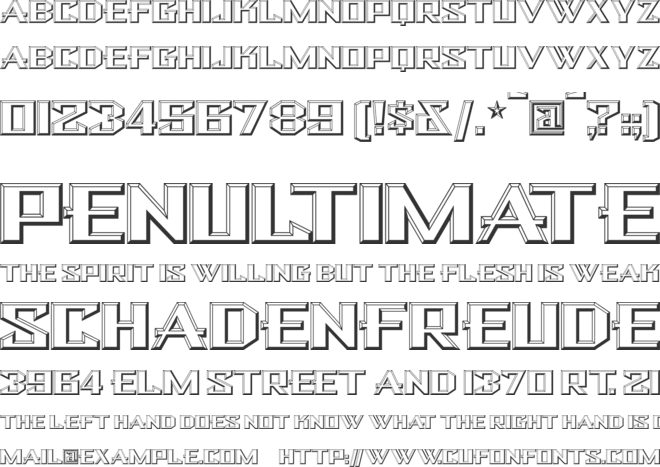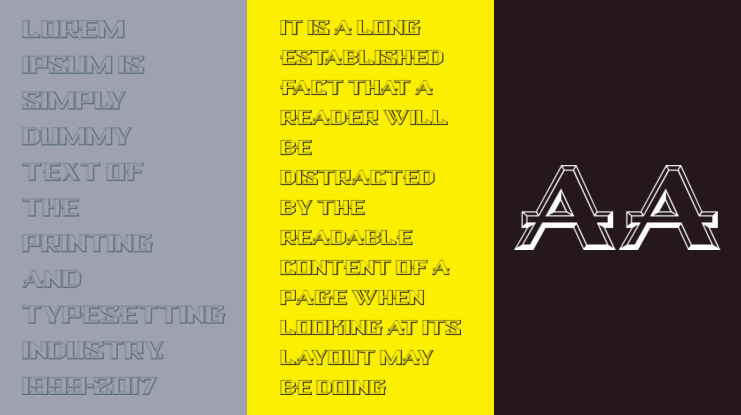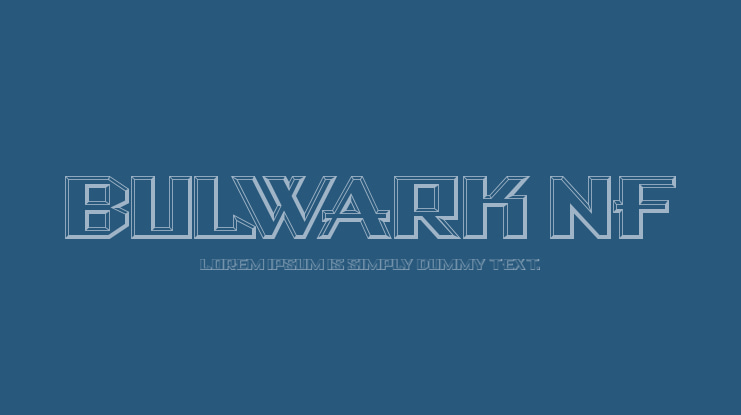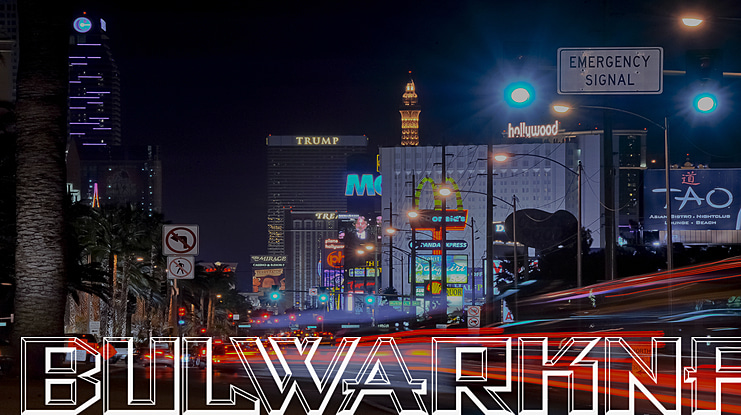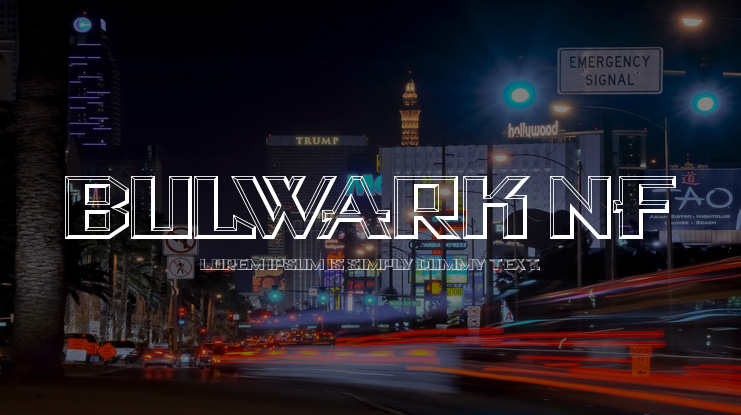
Bulwark NF Font
The inspiration for this font was seen on a poster by Chris Ware, although the original letters were flat, without any added dimension. The stark, angular lines of the lettering seemed to lend themselves well to an “extruded” treatment, so that’s what they got.